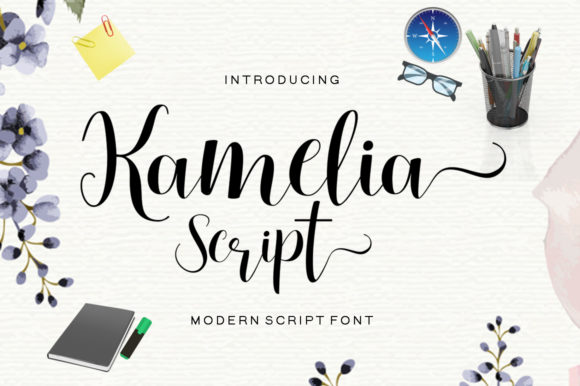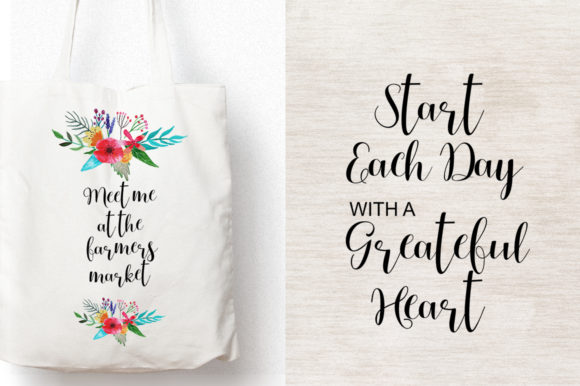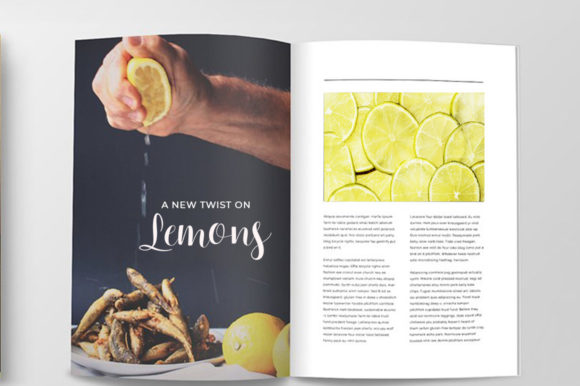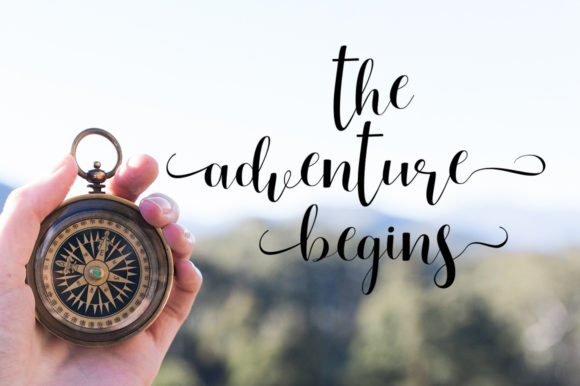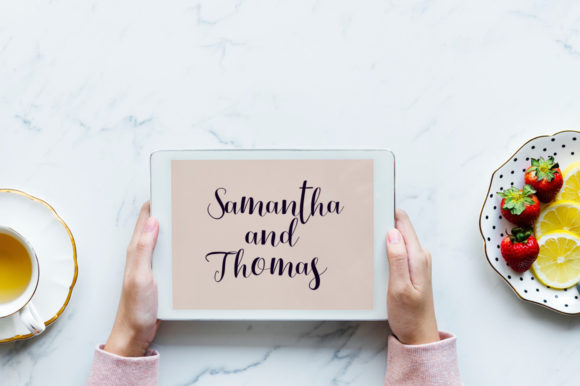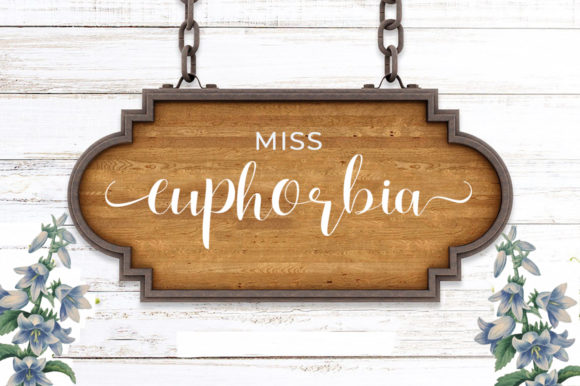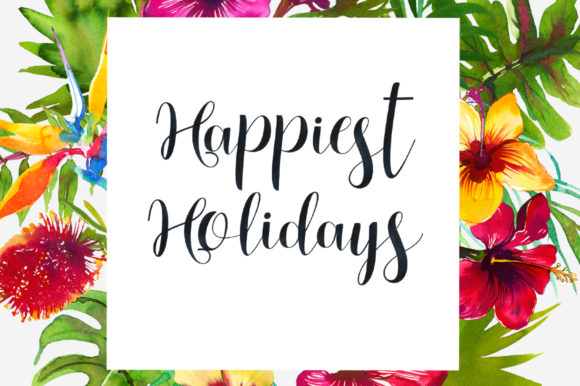
Kamelia Script Font
About Kamelia Script Font
Kamelia is a new modern script calligraphy font with an irregular baseline. With a trendy and feminine style, Kamelia Script looks lovely on wedding invitations, thank you cards, quotes, logos, business cards and more.